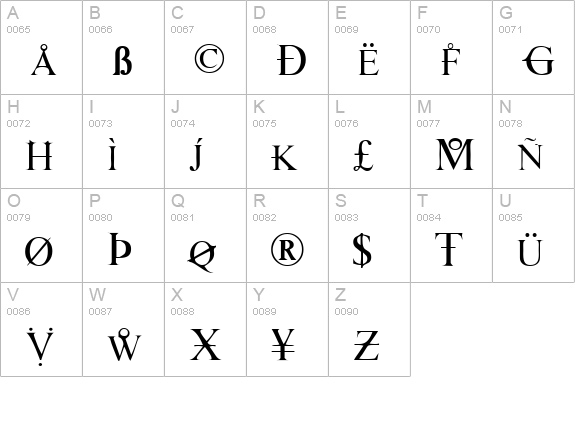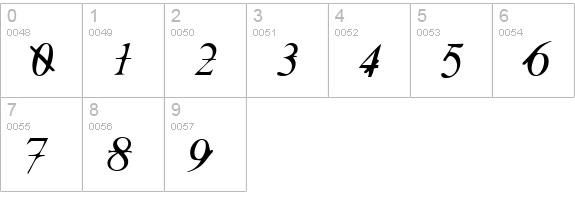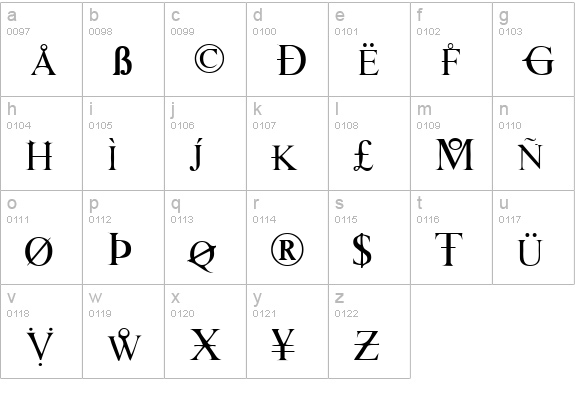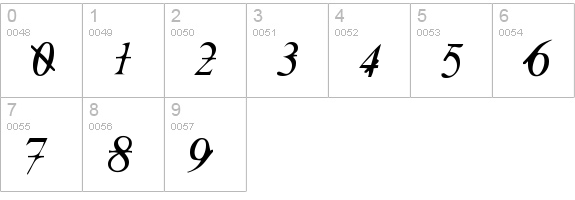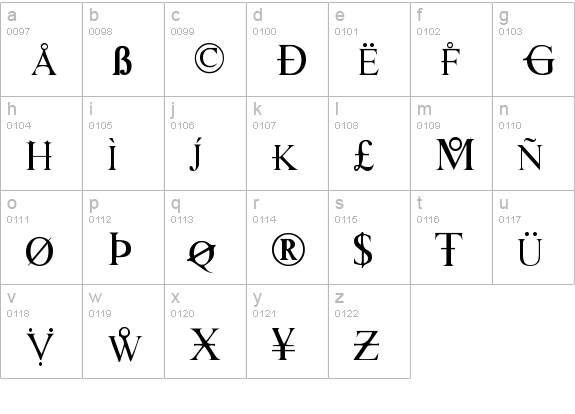
Times_Hackers font is a stunning typeface that combines the classic elegance of Times New Roman with a modern twist. It is perfect for all your design projects that require a touch of sophistication and innovation. With its sleek and stylish letterforms, this font will surely make your designs stand out from the crowd. What sets Times_Hackers font apart is not only its visually appealing aesthetics but also its accessibility. This font is available for free download at FontsMarket.com, making it a valuable resource for designers, students, and anyone who appreciates high-quality typography. Whether you are working on a professional project or simply want to elevate your personal creations, Times_Hackers font offers a wide range of possibilities. Its versatility allows it to be used in various contexts, from print materials such as brochures and posters to digital platforms like websites and social media graphics. The legibility of Times_Hackers font ensures that your message is easily conveyed to your audience, while its unique design adds a touch of personality and originality to your work. Its clean lines and balanced proportions make it suitable for both body text and headlines, providing a cohesive and polished look to your designs. With Times_Hackers font, you can unleash your creativity and create visually stunning designs that leave a lasting impression. Its timeless appeal combined with its modern edge makes it a go-to choice for designers seeking a font that is both classic and contemporary. Don't miss out on this incredible typeface. Download Times_Hackers font for free at FontsMarket.com and unlock a world of possibilities for your design projects.